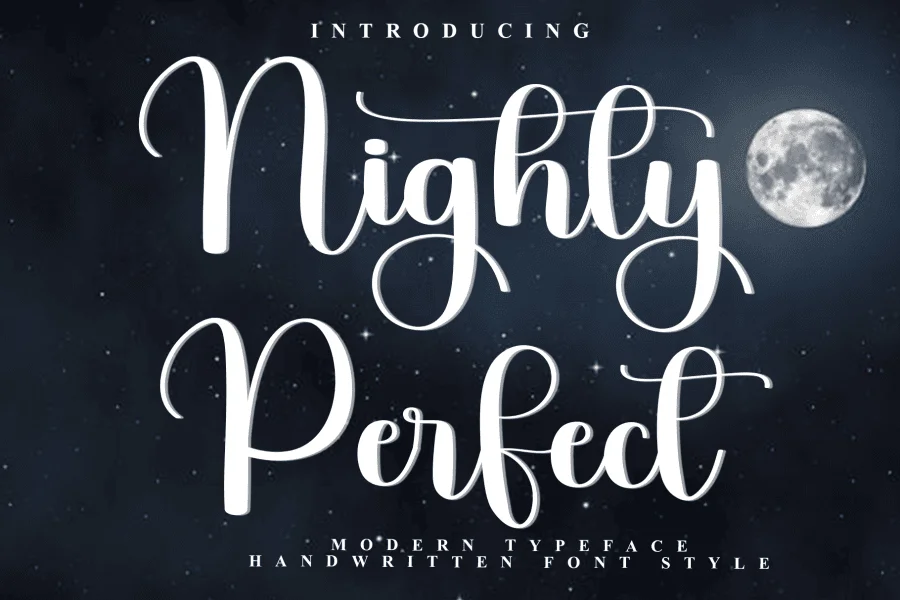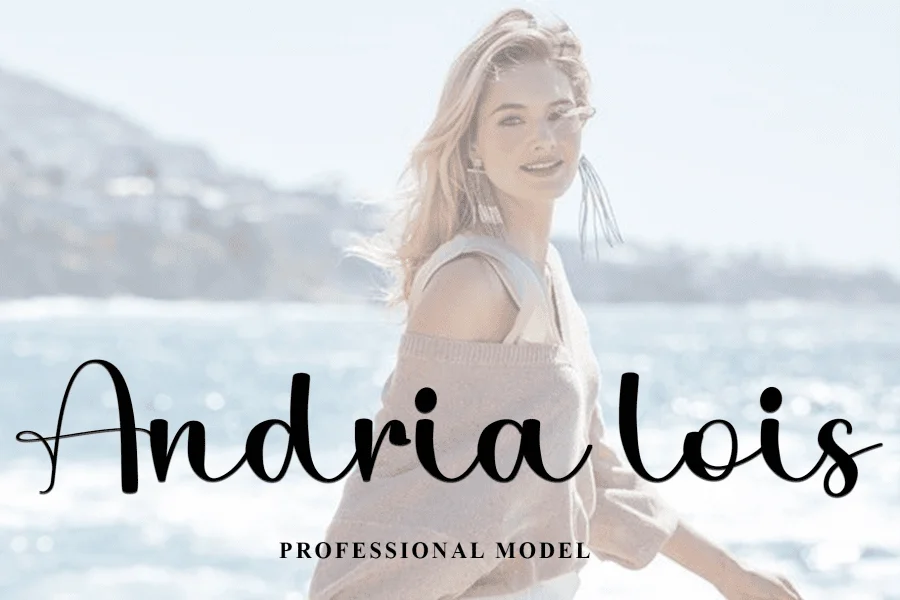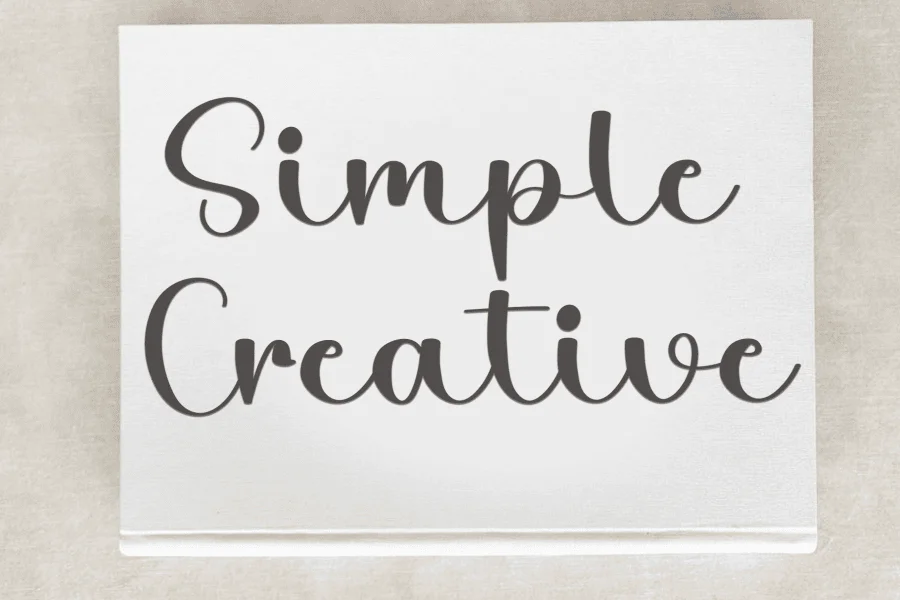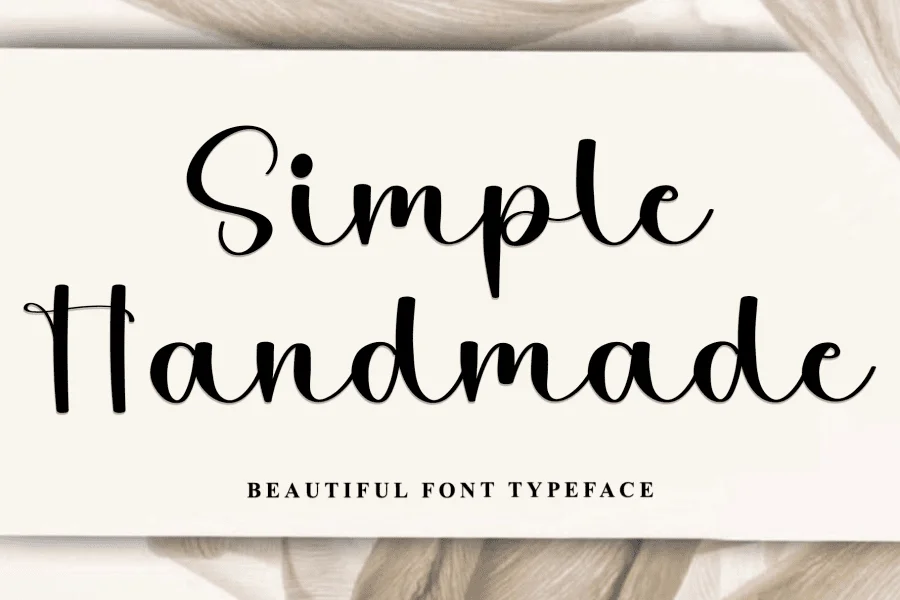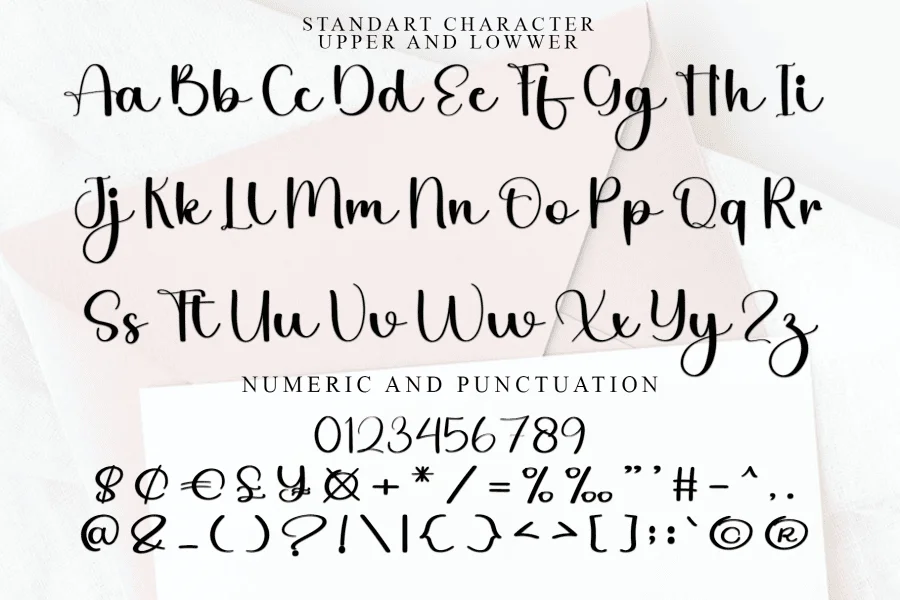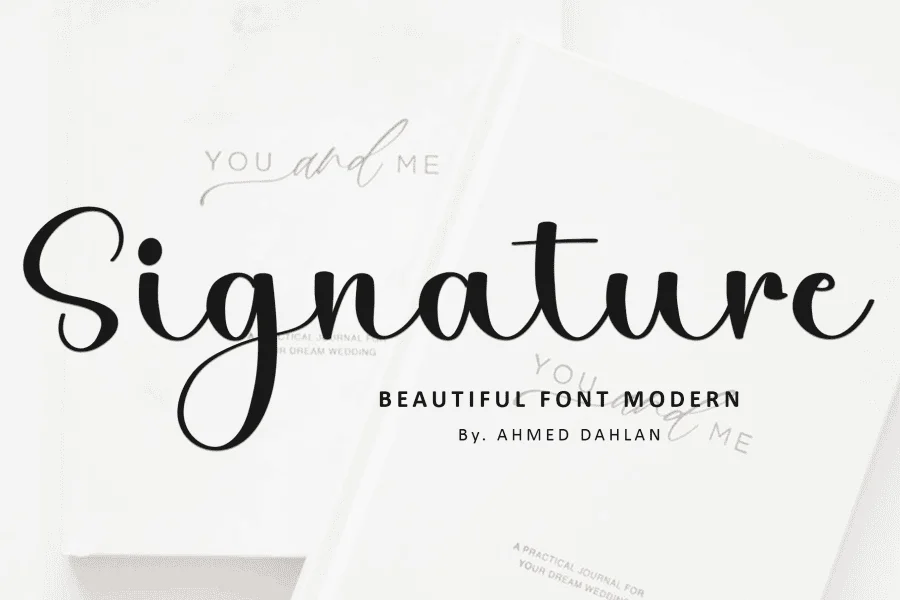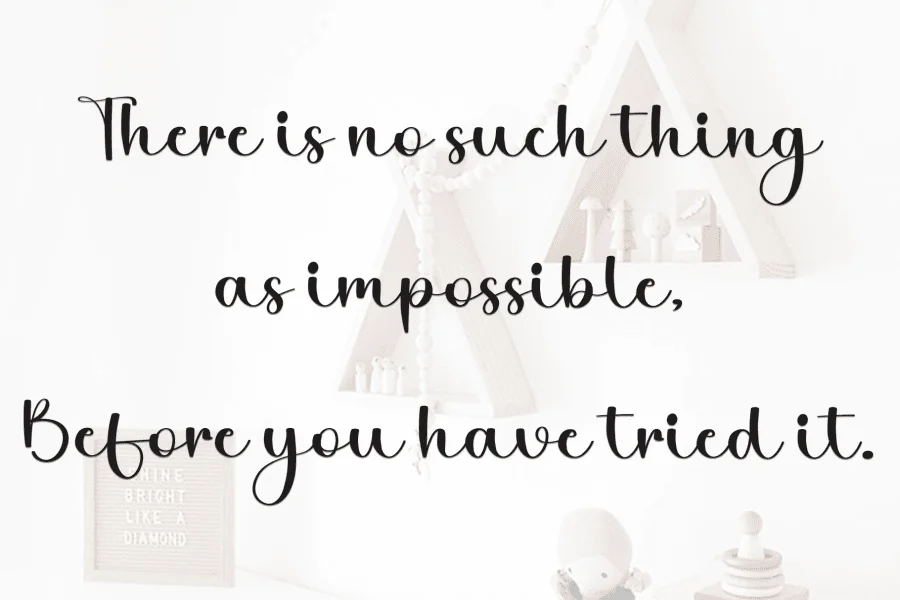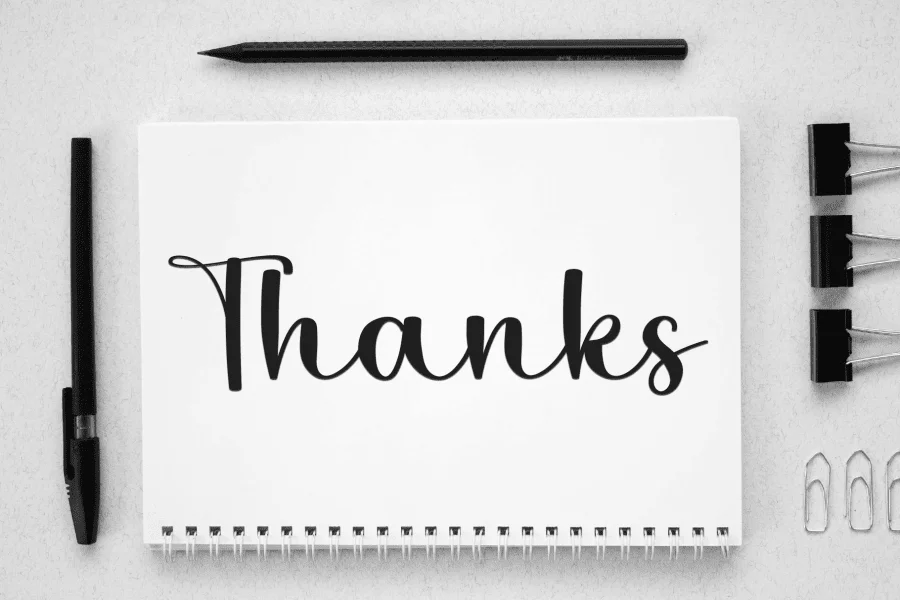
Angelina whitening is an elegant calligraphy-style script typeface that blends organic, handmade warmth with a refined, modern aesthetic. Characterized by its fluid, upright posture and high-contrast strokes, the typeface features graceful loops and delicate entry and exit swashes that give it a rhythmic, dancing quality. The overall construction balances a casual, handdrawn feel with a structured, sophisticated texture, making it both approachable and luxurious.
This typeface is perfectly suited for design projects requiring a touch of personal elegance and high-end charm. It excels in intimate wedding stationery, delicate cosmetic packaging, lifestyle branding, and editorial layouts. Its flowing, romantic lines also make it an excellent choice for social media graphics, book covers, and boutique signage where a warm, human-centric connection is desired.